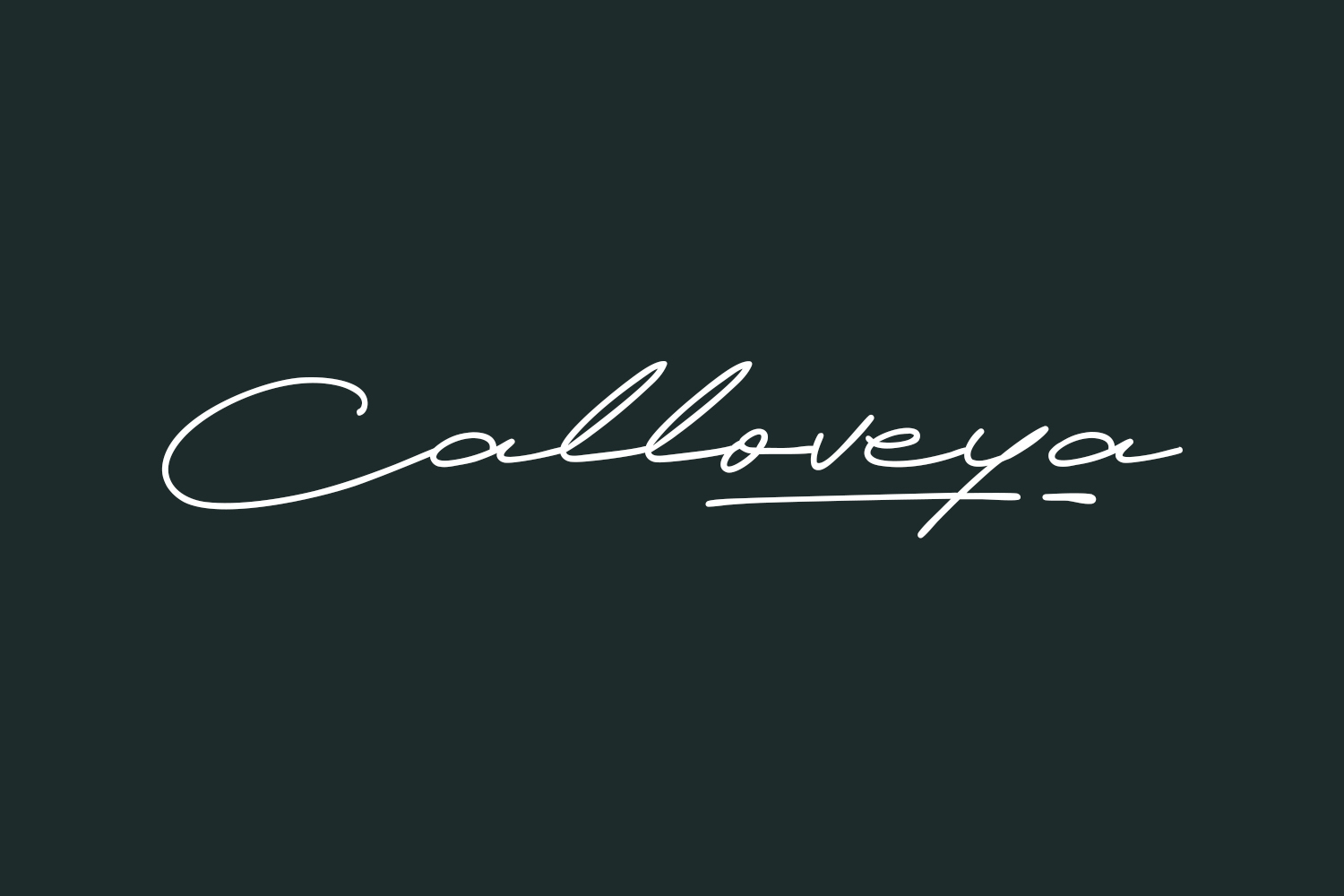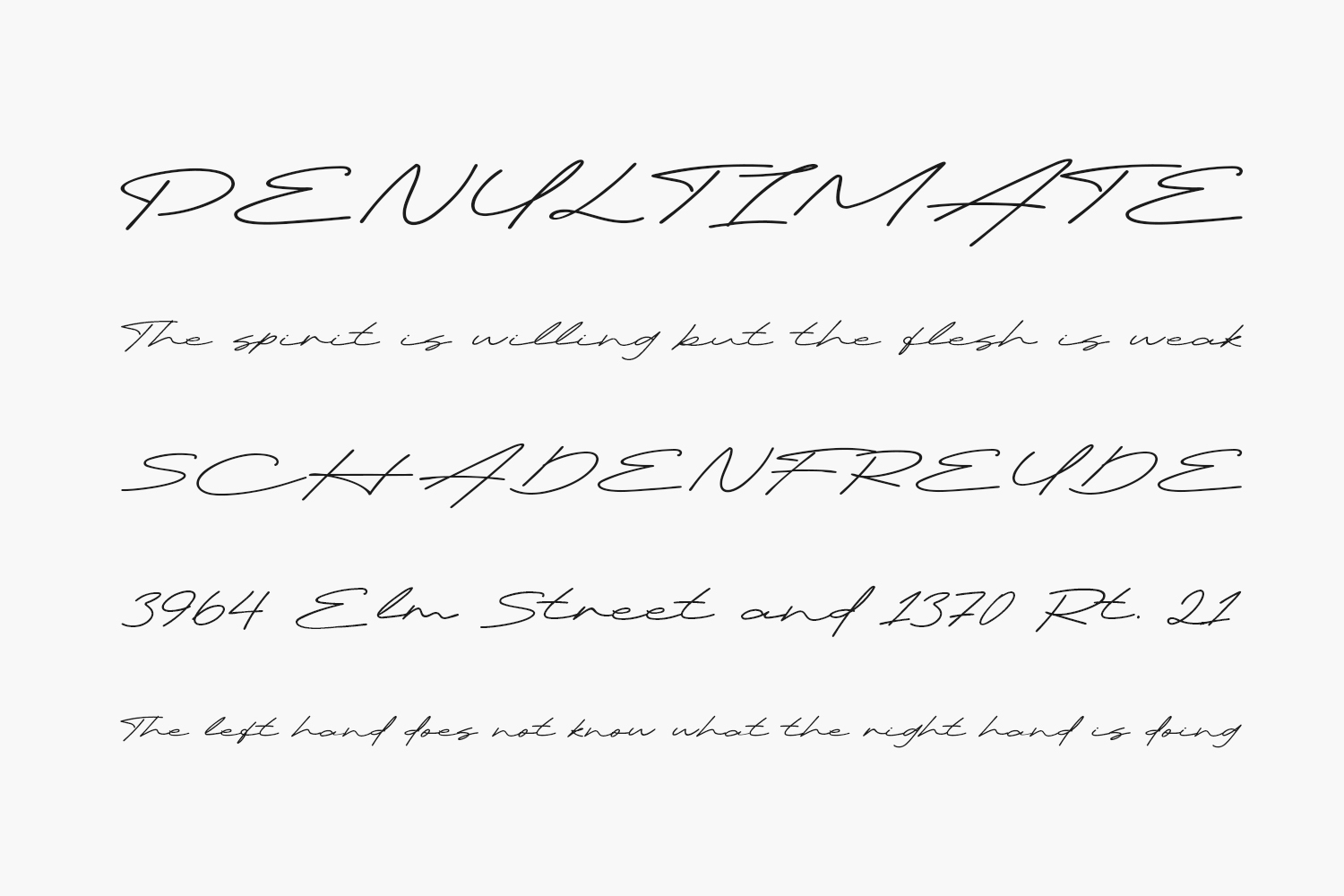
Introducing Calloveya Free Font, a sleek, stylish, modern, and elegant script font designed for versatility across various projects such as posters, logos, magazines, book covers, banners, and more! Acquire this exceptional font to infuse your designs with a touch of sophistication. Its adaptability makes it a perfect match for a diverse range of projects, so integrate it into your creative ideas and witness how it effortlessly enhances their visual appeal. Calloveya Free Font was designed by Khurasan and is free for personal or commercial use.